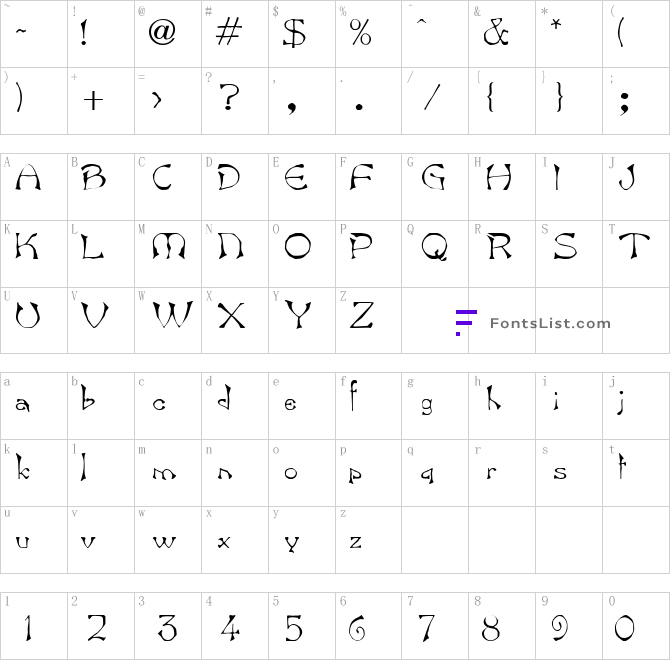
- Font Name:BambergDB
BambergDB-Bold.ttf is a very beautiful artistic font, BambergDB-Bold.ttf is widely used in the design and printing of various books and pictures,BambergDB-Bold.ttf has a strong visual impact,BambergDB-Bold.ttf is a commonly used font in newspapers, magazines and books, and is used in posters, e-commerce Poster design, store design, logo design, font design and other fields.BambergDB-Bold.